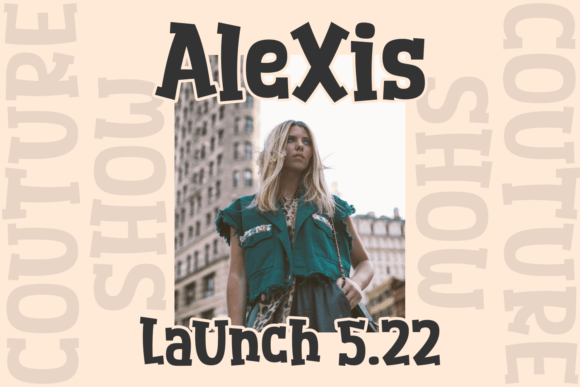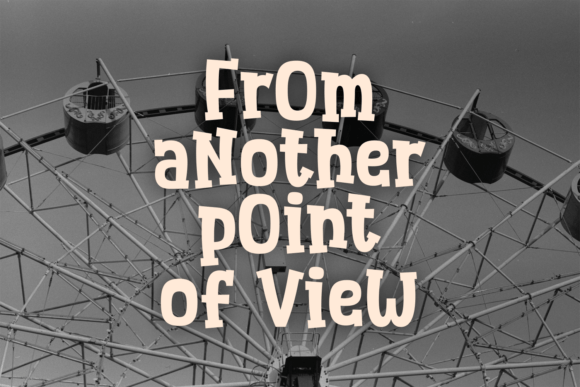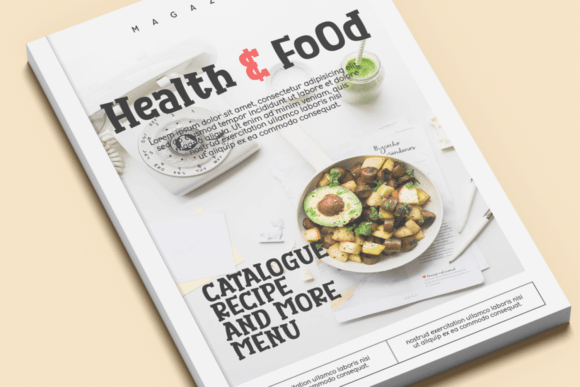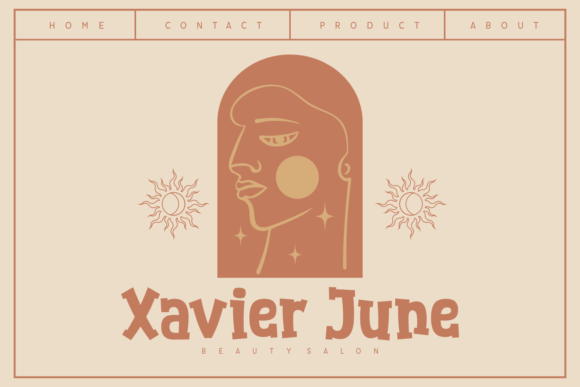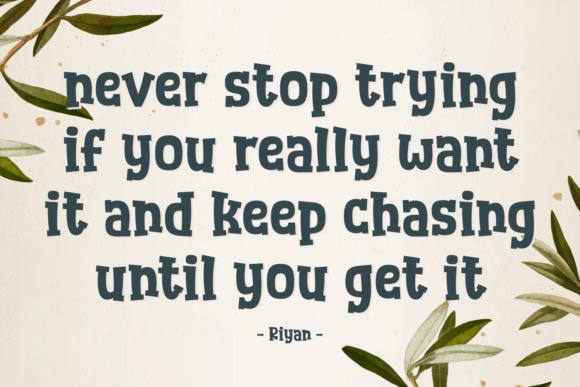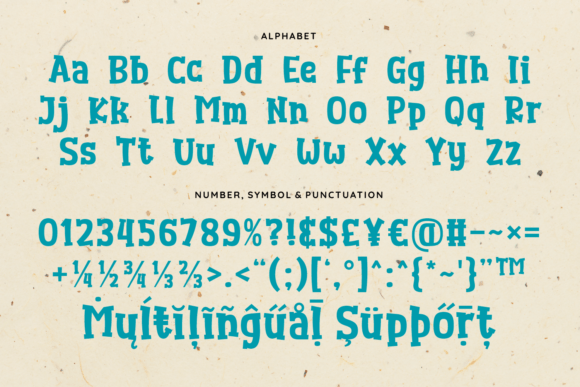
Unleash Your Creativity with the Ultimate Bold Display Font
Have you ever stared at a blank canvas, waiting for inspiration to strike? That’s exactly what happened to me when I first laid eyes on Awesome Content Font. Its quirky, bold style sparked a wave of excitement and creativity, begging me to break free from the ordinary and try something new.
Awesome Content Font is more than just a typeface – it’s a statement piece, perfect for making a bold impression on album art, posters, or business cards. Its unique design is sure to turn heads and leave a lasting impression. For designers, this font is a valuable asset, offering endless possibilities for creative expression and pushing the boundaries of what’s possible.
Awesome Content Font Key Features
- Font Family: Awesome Content Font offers a unique blend of serif and sans-serif styles, making it suitable for a wide range of content types.
- Character Set: The font includes over 800 glyphs, covering Latin, Cyrillic, Greek, and other languages, making it a great choice for multilingual content.
- Unique Characteristics: Awesome Content Font features a unique, hand-crafted design that combines elegance and readability, making it perfect for body text, headings, and titles.
Designer Review: Awesome Content Font
Overall, I was really excited to dive into “Awesome Content Font” and see what it had to offer. Here’s my honest take:
- Readability: The font is super legible, even at smaller font sizes. It’s a great choice for content-heavy websites.
- Style: The font has a clean, modern aesthetic that’s easy to work with.
- Font Pairing: It pairs well with a variety of font families, making it a great choice for multi-font designs.
- Character Set: The font’s character set is limited, which may cause issues with certain languages or special characters.
- Weight Variations: While there are a few weight options available, they’re not as extensive as some other fonts in this category.
- Consistency: I noticed some minor inconsistencies in the font’s spacing and kerning, which can be distracting in certain contexts.
While “Awesome Content Font” has its strengths, it falls short in a few key areas. If you’re looking for a clean, readable font for content-heavy websites, it’s worth considering. However, if you need a font with a more extensive character set or weight variations, you may want to look elsewhere.
Getting the Most Out of Awesome Content Font
To get the most out of Awesome Content Font, try the following:
- Experiment with different font sizes and colors to create visual interest
- Use the font in combination with other design elements, such as images and graphics
- Customize the font to match your brand identity
Awesome Content Font is perfect for:
- Social media posts and captions
- Blog posts and articles
Alternatives to Awesome Content Font
Merriweather is a classic serif font ideal for body text, especially in long-form content. It is highly legible and suitable for print and digital media. Compared to Awesome Content Font, Merriweather is more traditional and elegant, making it perfect for formal documents, academic papers, and books.
Montserrat is a modern sans-serif font designed for digital media. It is highly legible on screens and suitable for headings, titles, and body text. Compared to Awesome Content Font, Montserrat is more minimalist and versatile, making it perfect for websites, mobile apps, and digital products.